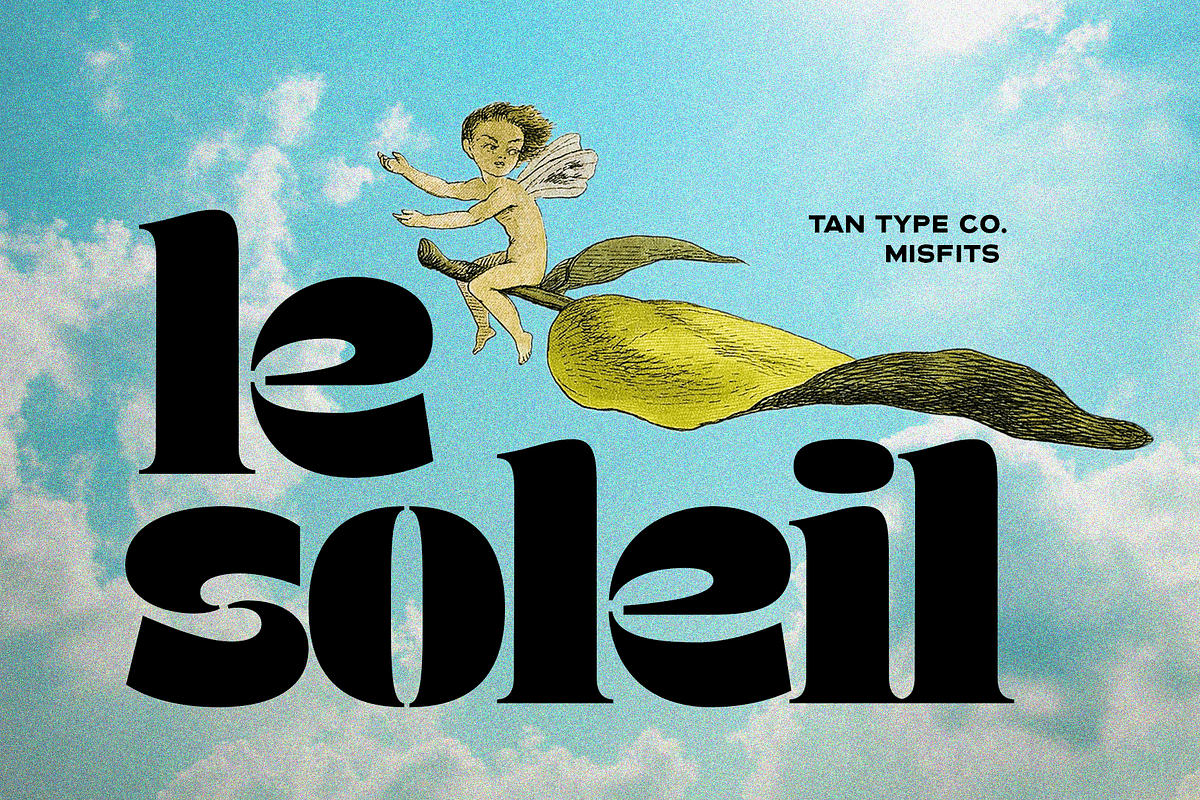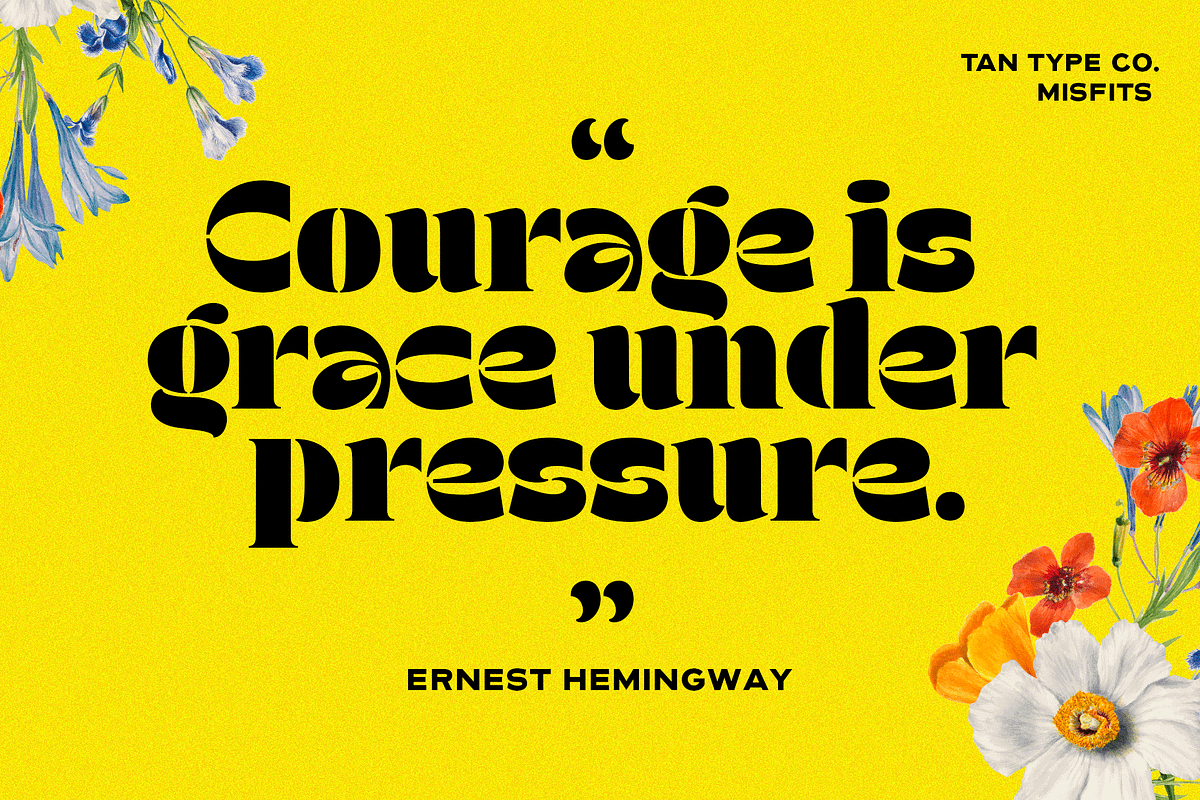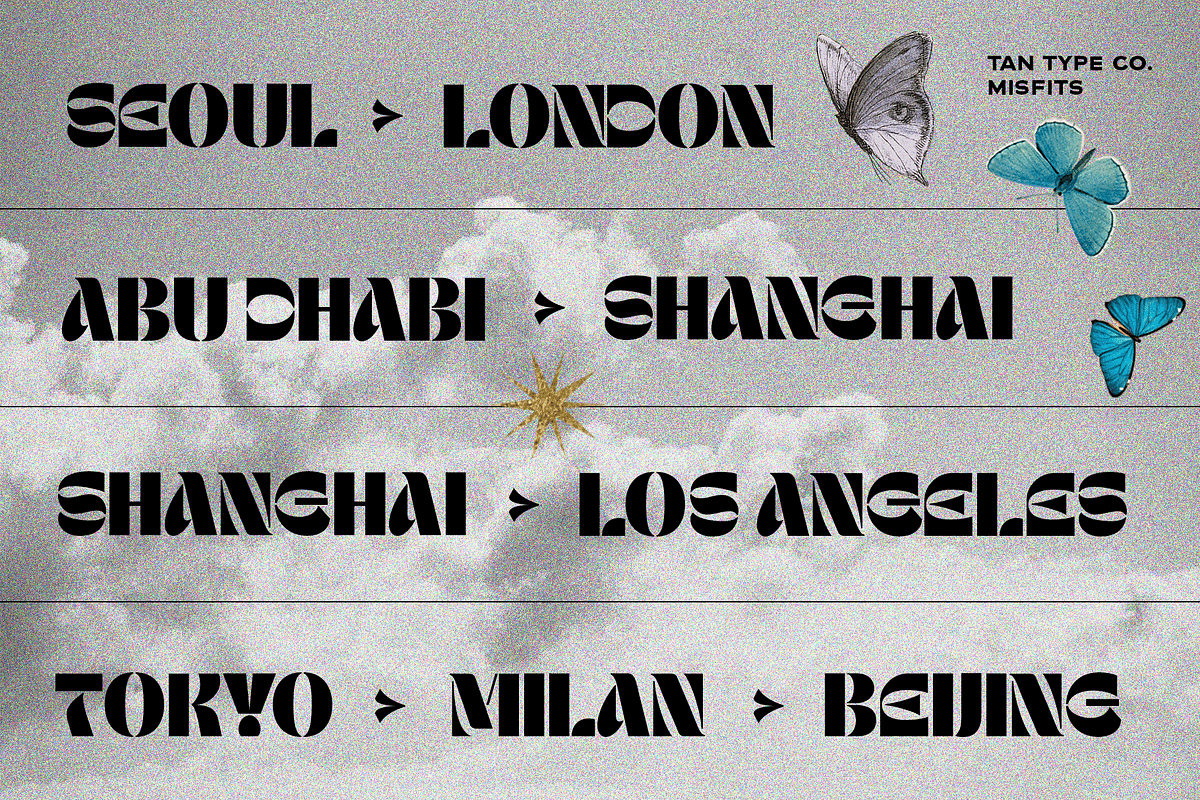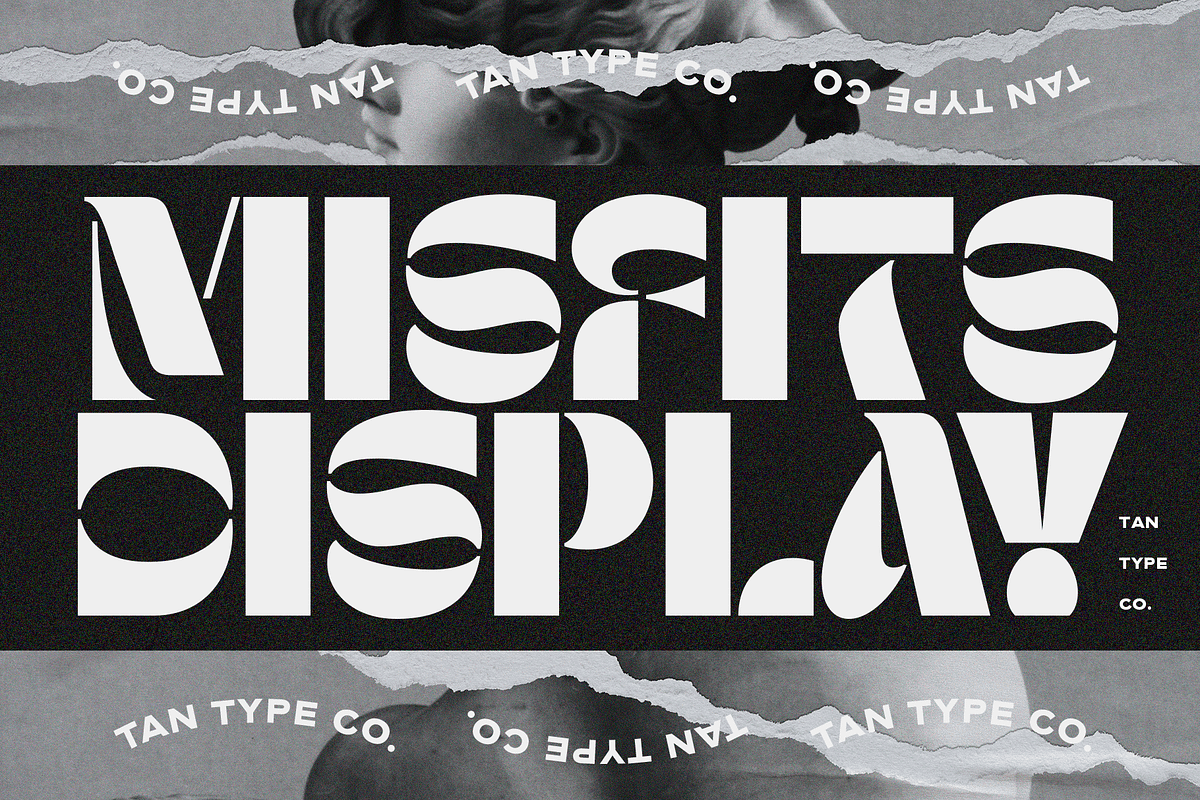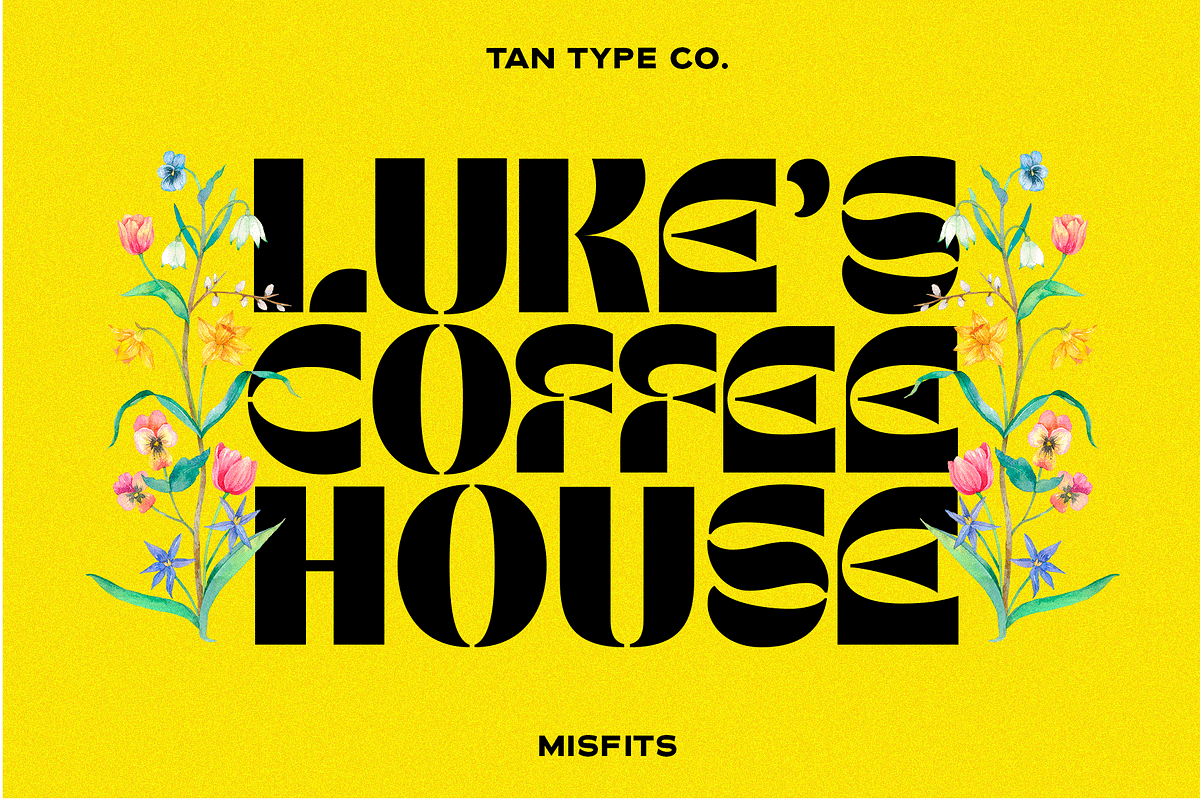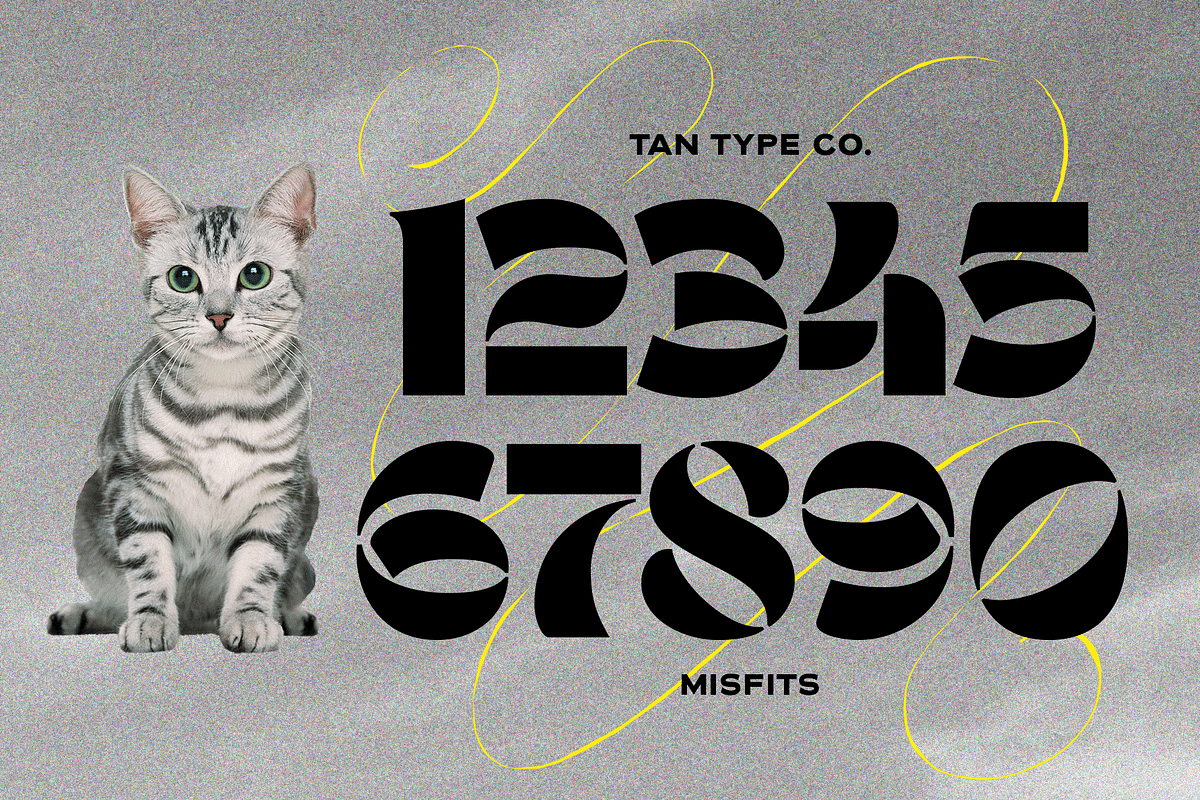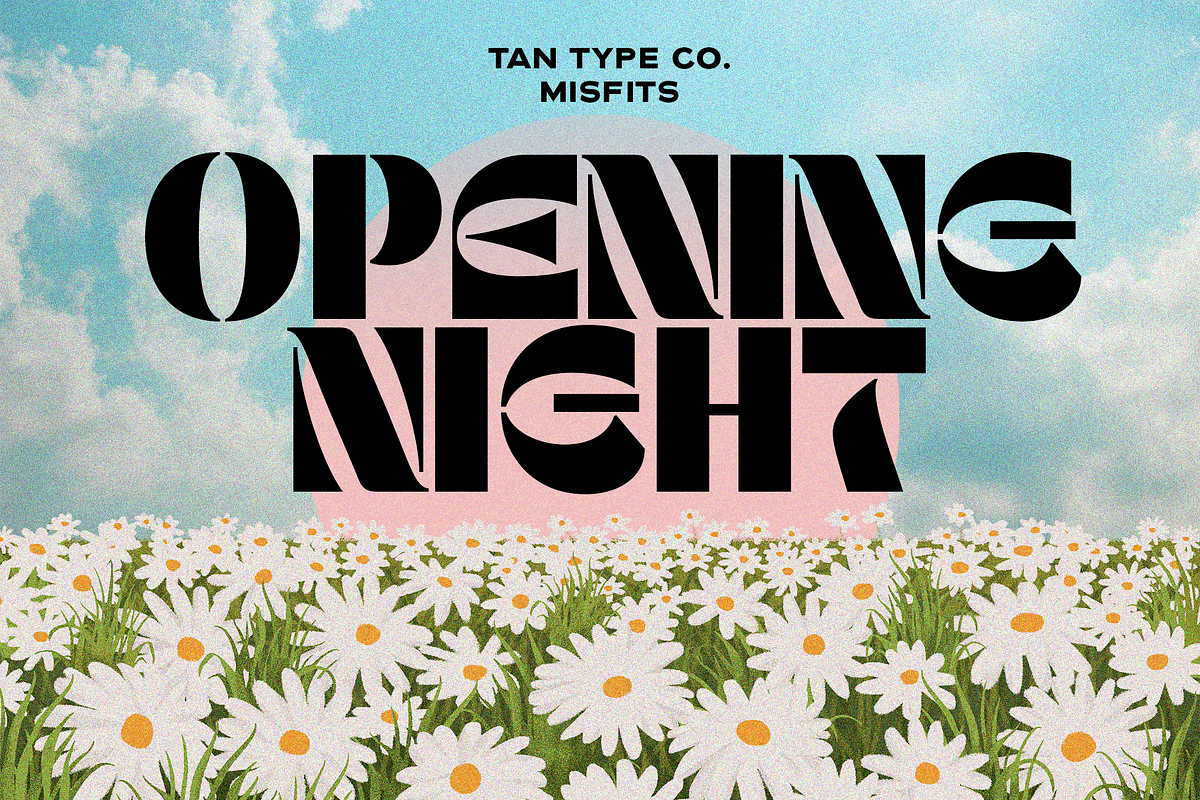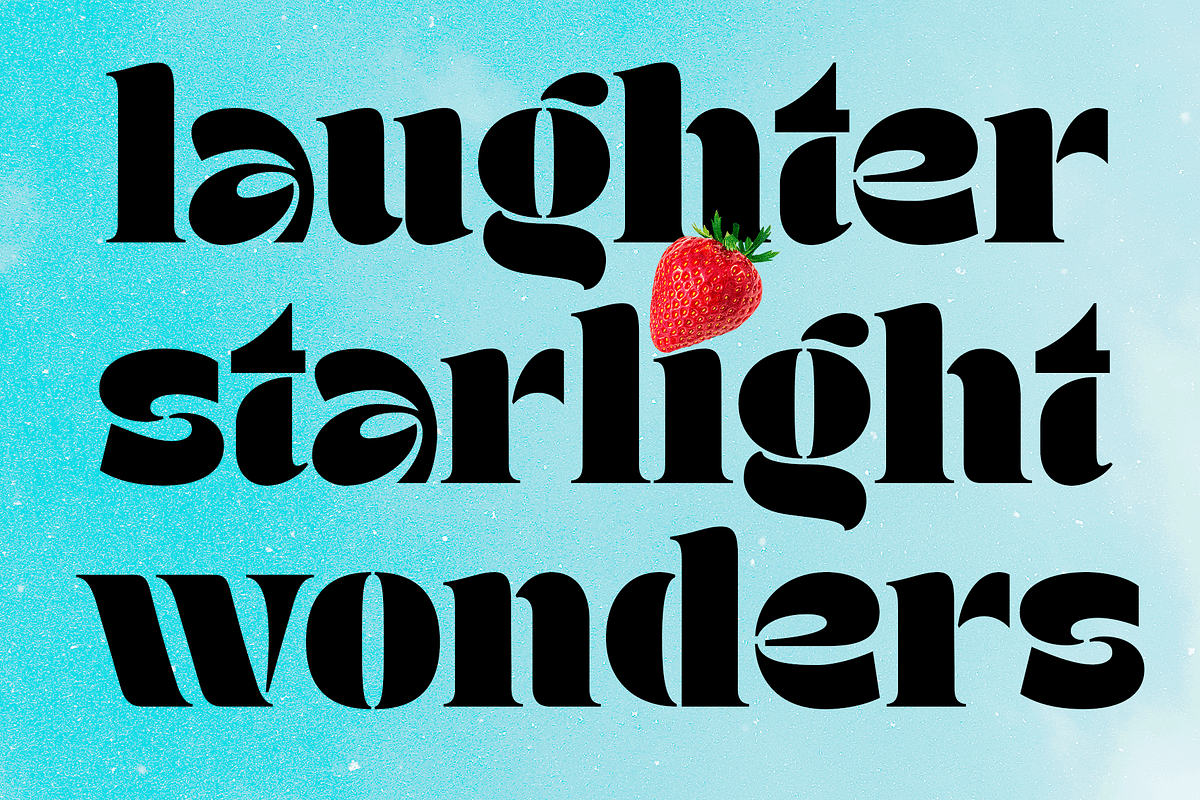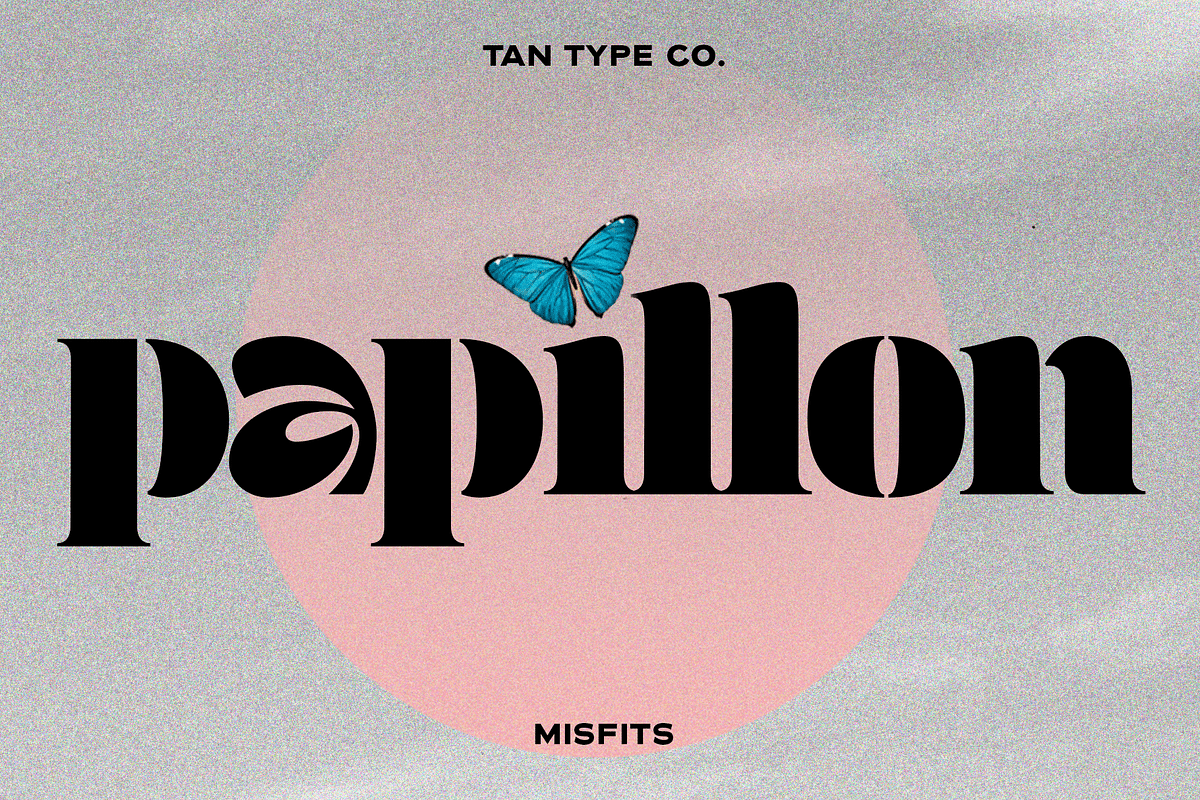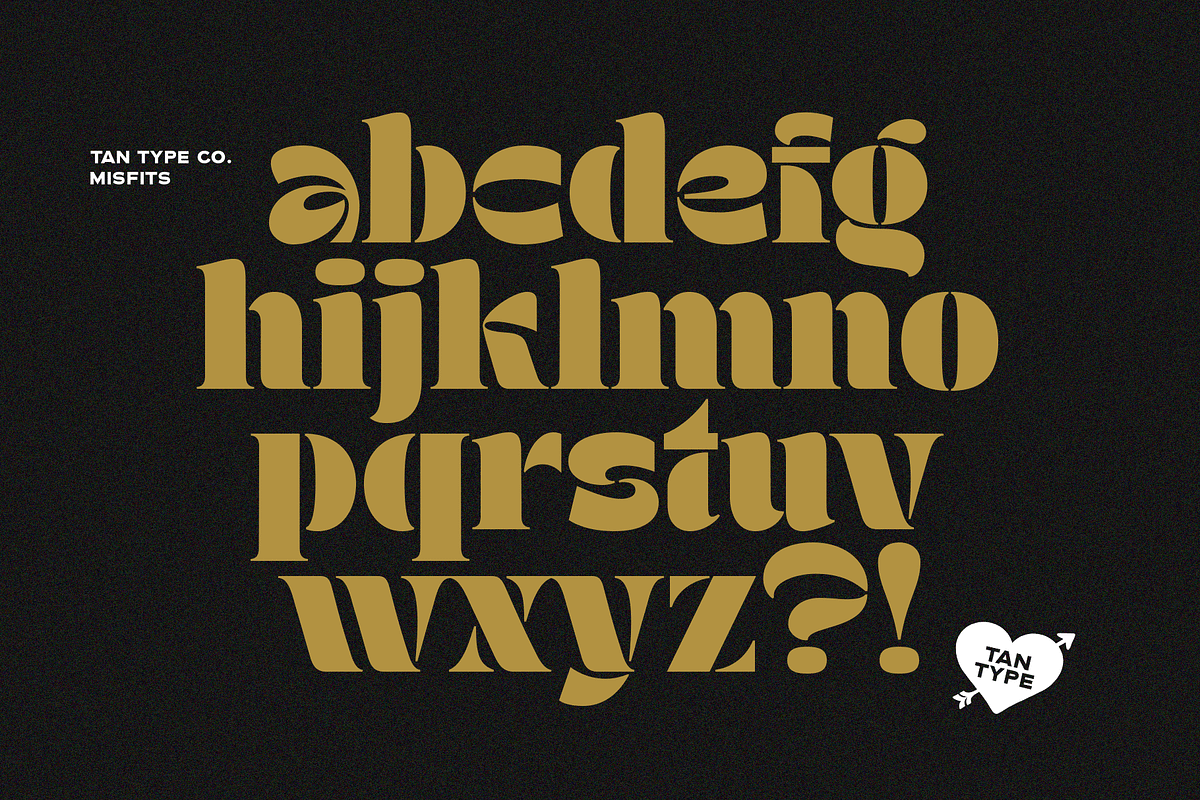
TAN - MISFITS
TAN - MISFITS is stencil display typeface. It has a bold and fun personality. Perfect if you want to add something different to your work(s).